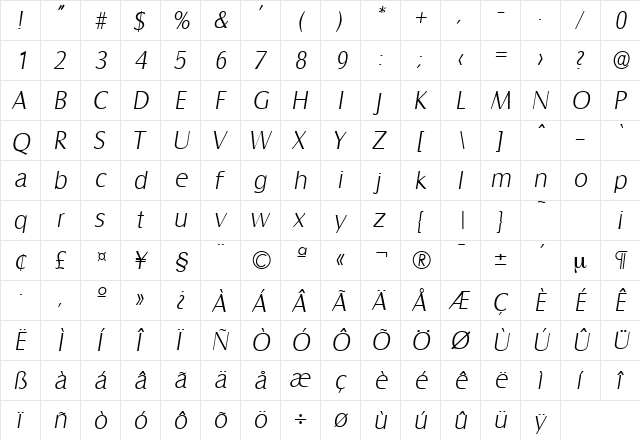
Salzburg-Serial-ExtraLight RegularItalic
Design Context for Salzburg-Serial-ExtraLight Typeface
Salzburg-Serial-ExtraLight is a composed and adaptable typeface that performs quietly and consistently across a wide range of design contexts. The slanted form adds forward momentum and visual energy. The delicate stroke weight brings airiness and refinement to layouts.
Pro Tip: Use Salzburg-Serial-ExtraLight for emphasis, pull quotes, and subheadings where its slanted energy can add rhythm to the layout.